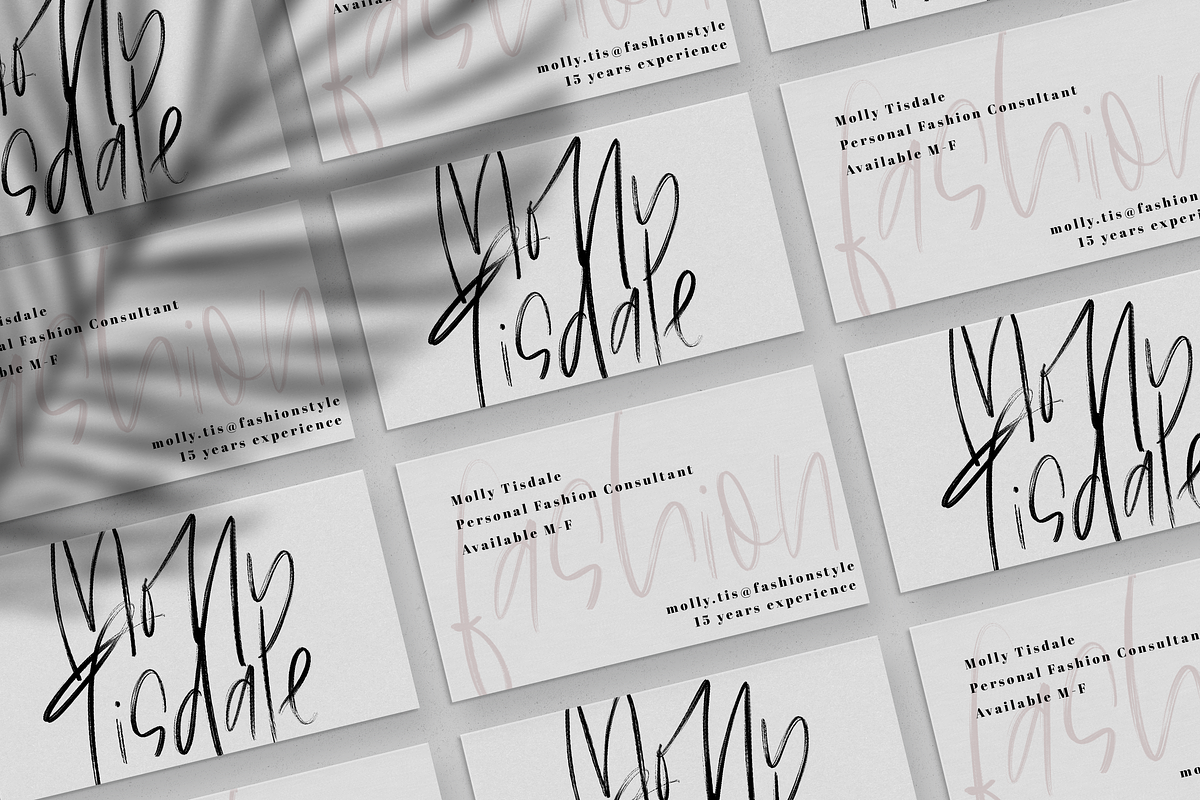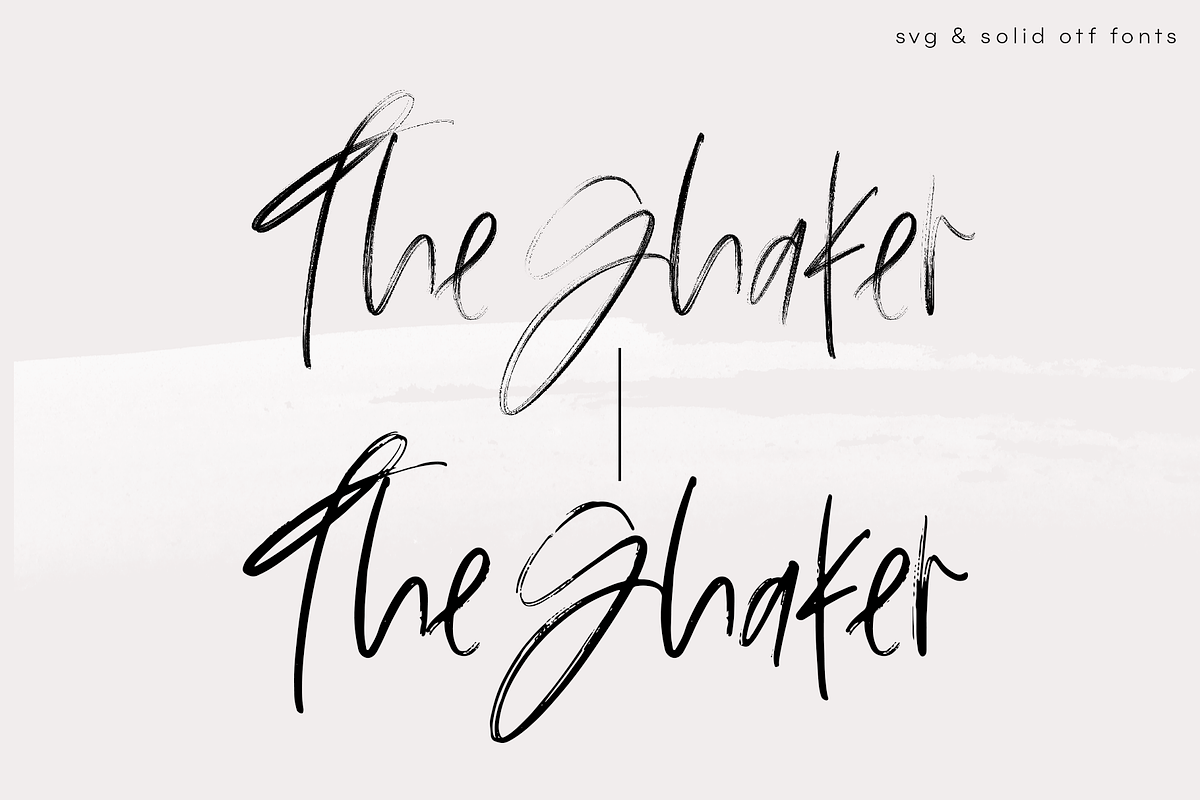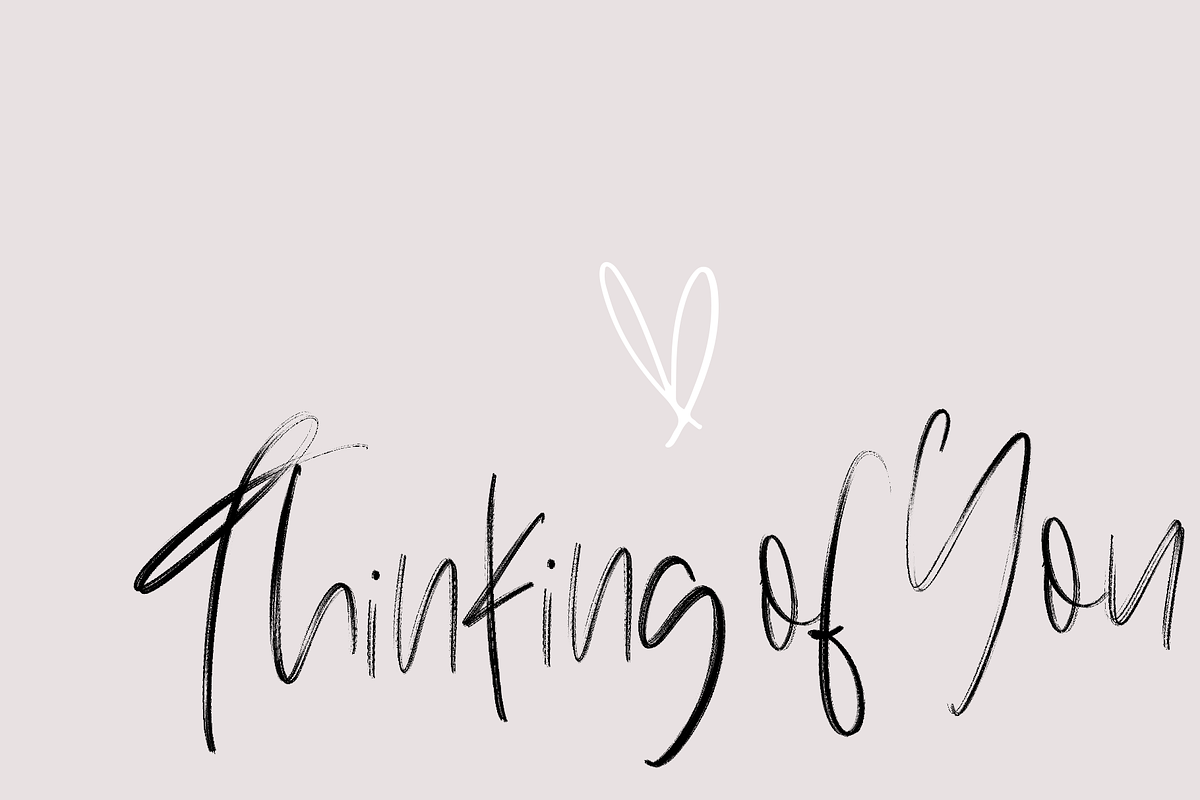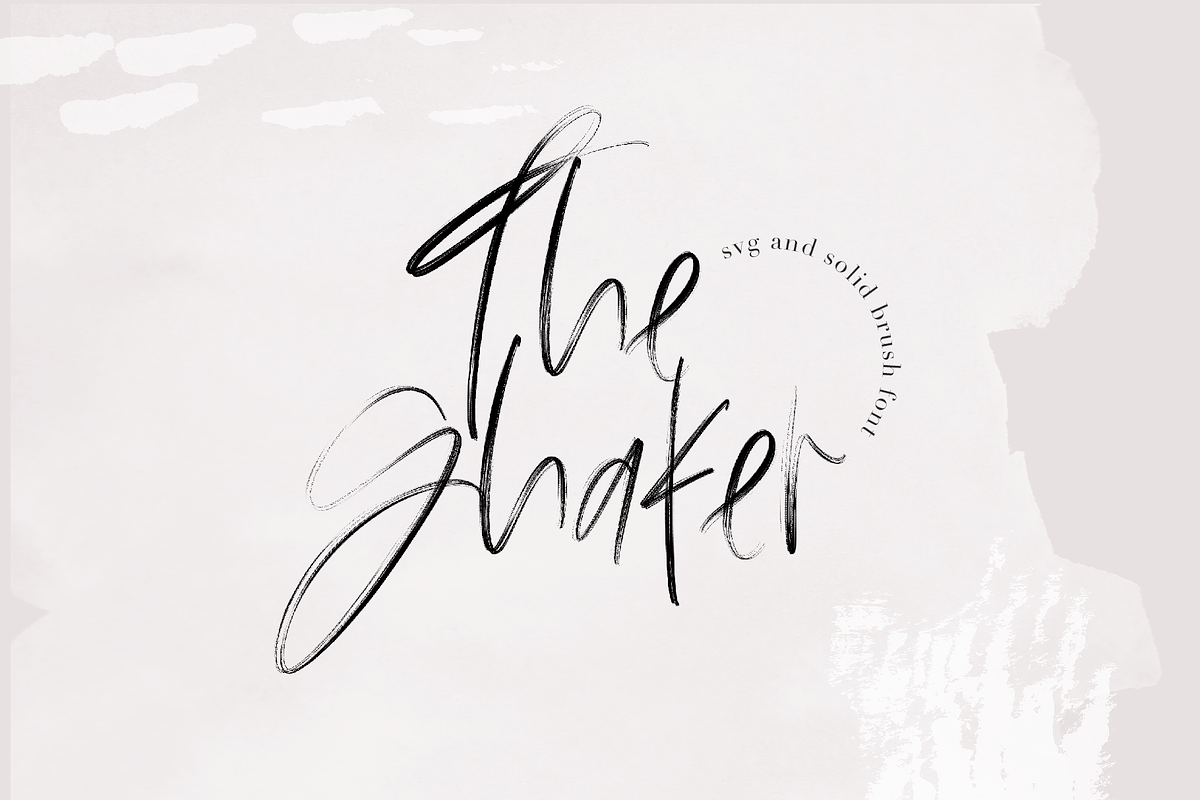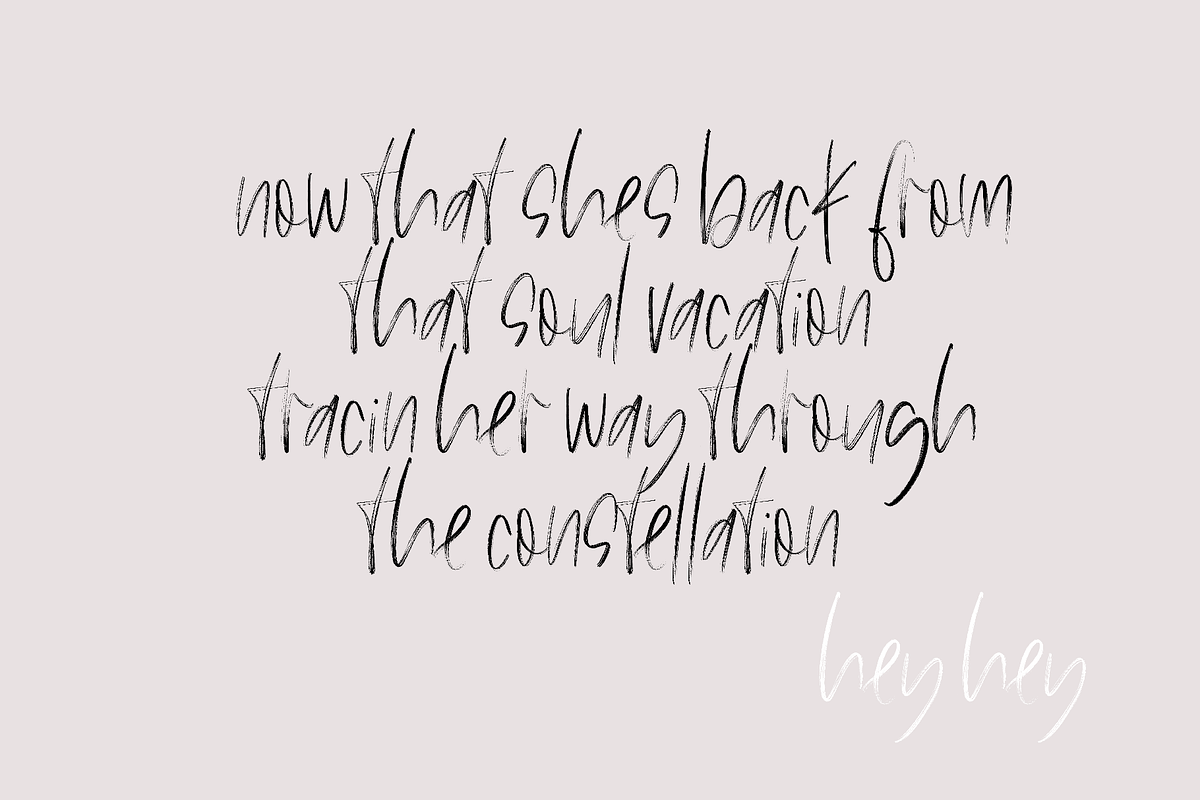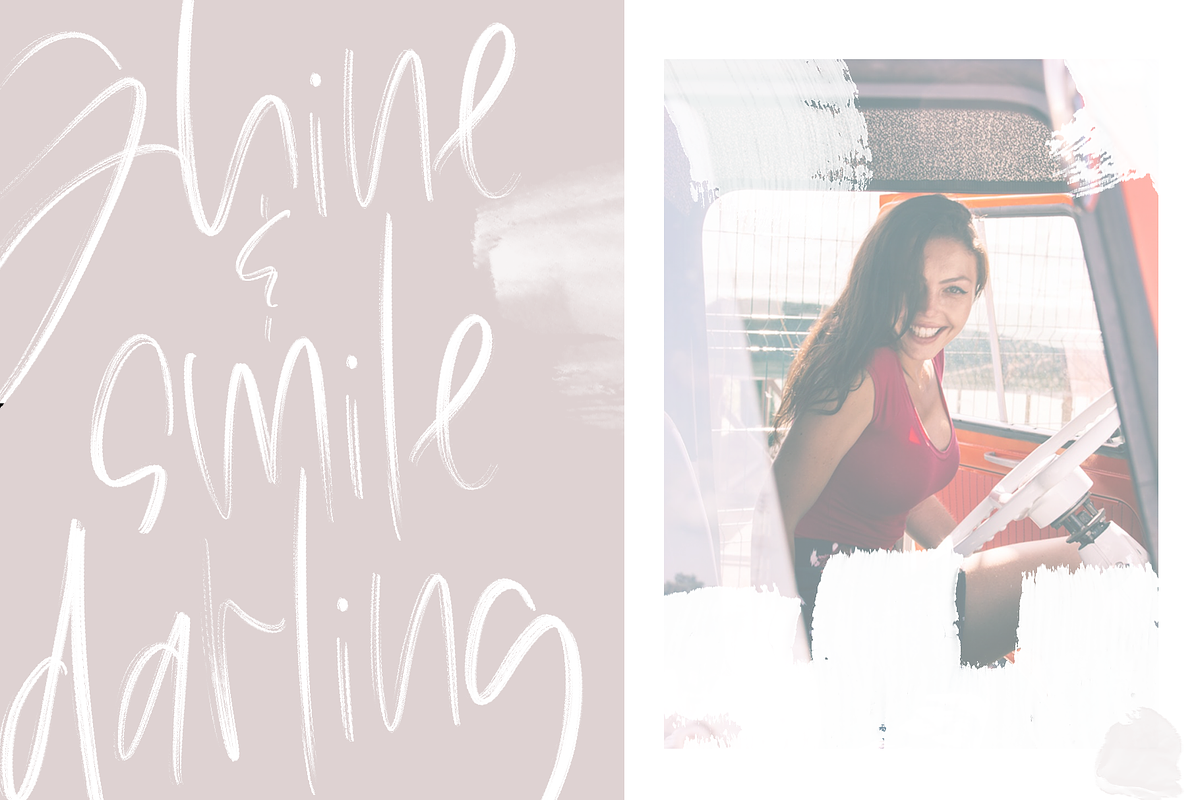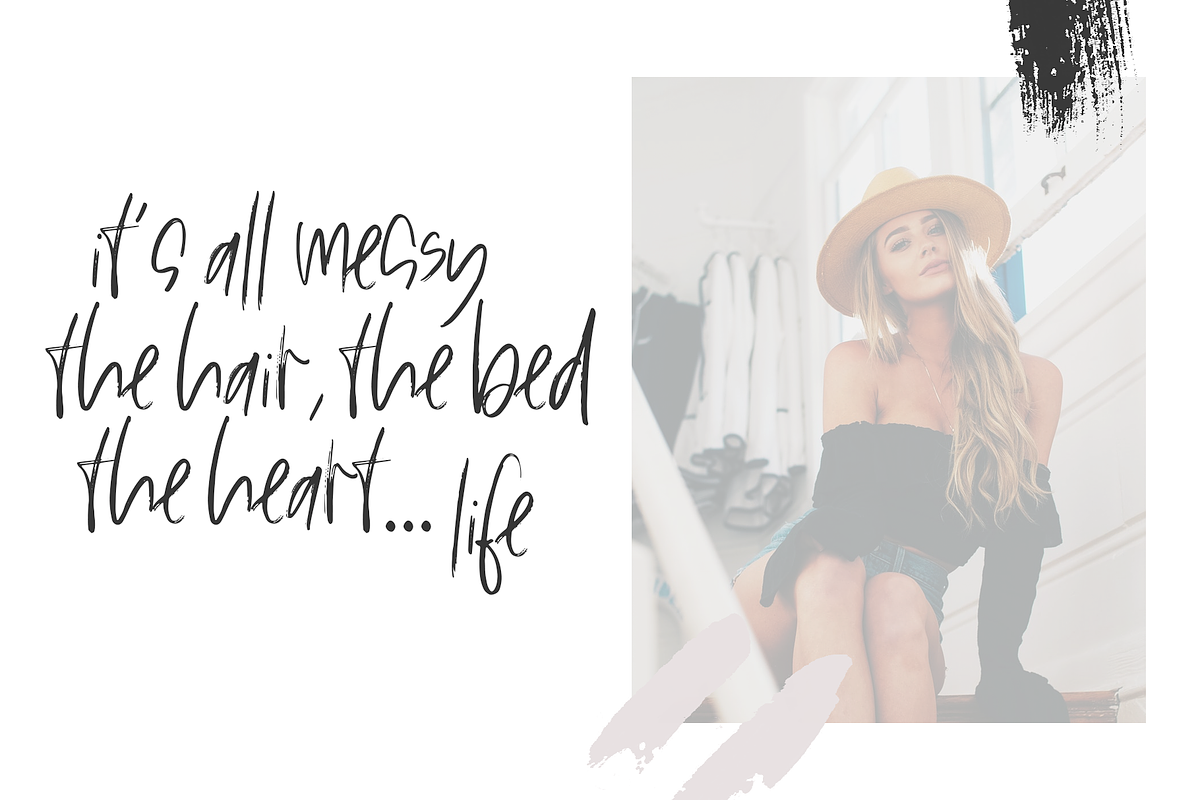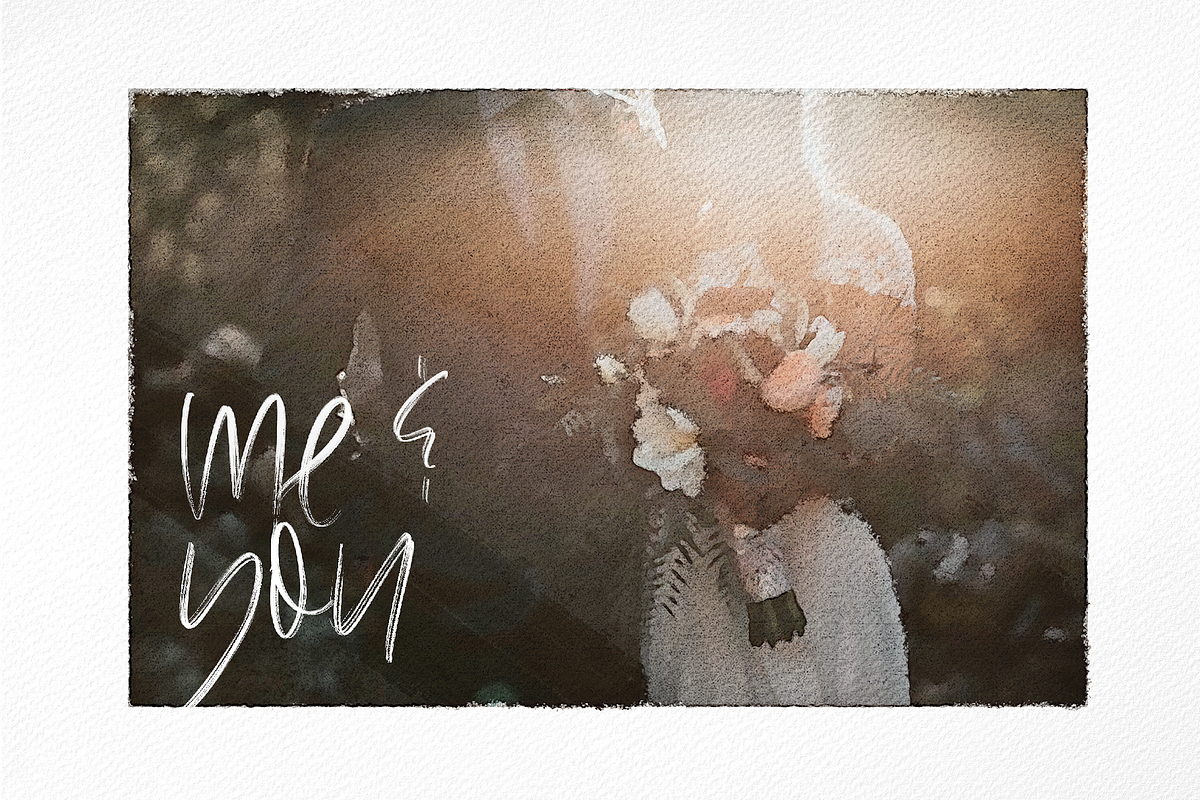
The Shaker - SVG & OTF Brush Font
The Shaker is handwritten font that I've created to mimic the look of my handwriting!
Each letter has been drawn by hand keeping the untouched texture for the SVG font. If you are unable to access SVG fonts, a solid style is accessible.
The Shaker is perfect for modern projects, headings, blogs, logos, brandings, invitations and more!